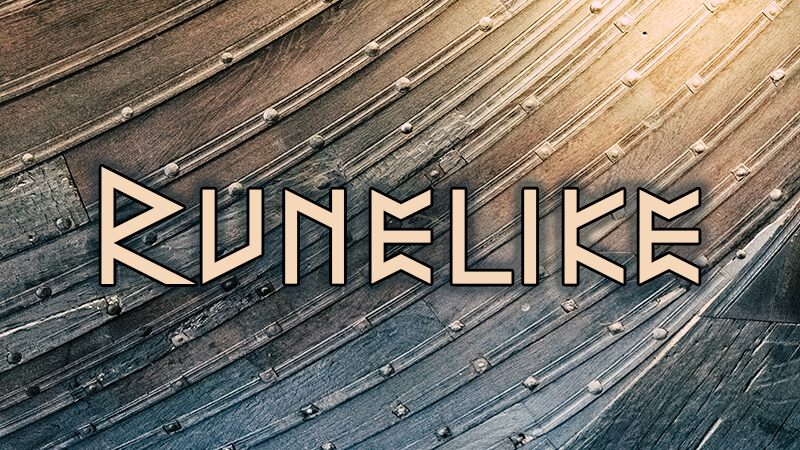
Runelike Free
Runelike, a masterful creation by font designer Virstag, invites you into a realm where the mystique of gothic architecture and the enigmatic energy of ancient runes converge. With its semi-light weight, this typeface offers an ethereal presence that is both commanding and subtly graceful. The sharp angles and linear precision evoke the age-old tradition of rune carving, bringing a touch of archaic elegance to contemporary design.
The aesthetic appeal of Runelike lies in its harmonious balance between historical allure and modern finesse. Its characters are crafted with an eye for detail that pays homage to gothic sensibilities without compromising readability. This makes Runelike not just a font but a visual experience that adds depth and character to any project it graces.
Whether used for branding, game design or evocative editorial pieces, Runelike's versatility shines through. Its distinct style is poised to captivate audiences across various creative ventures where its unique flair can create impactful statements. Embrace the power of Runelike to infuse your work with an aura of ancient wisdom wrapped in contemporary chic.